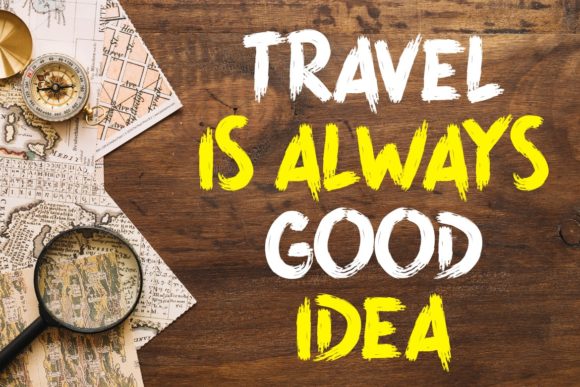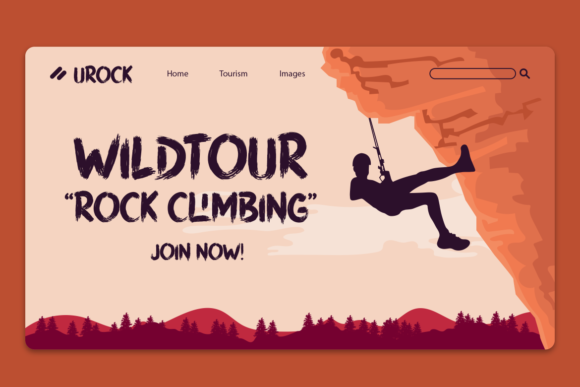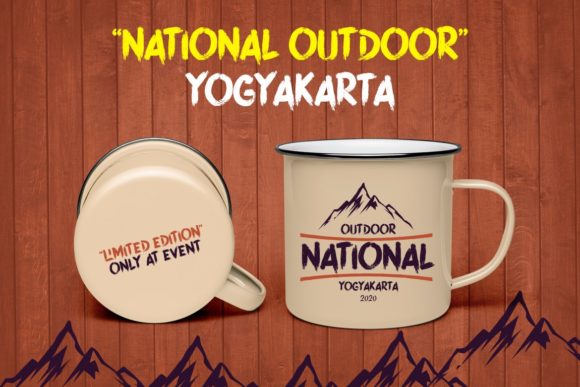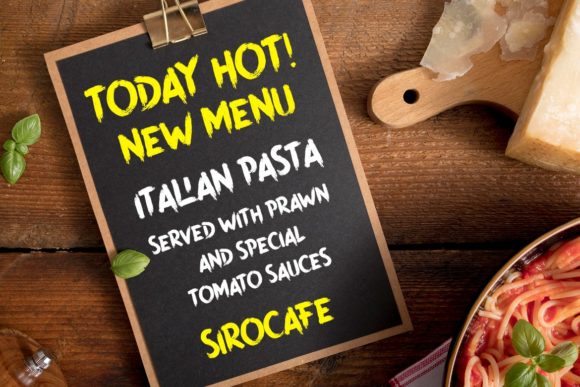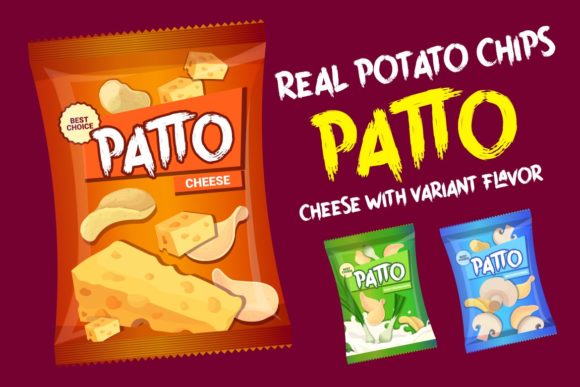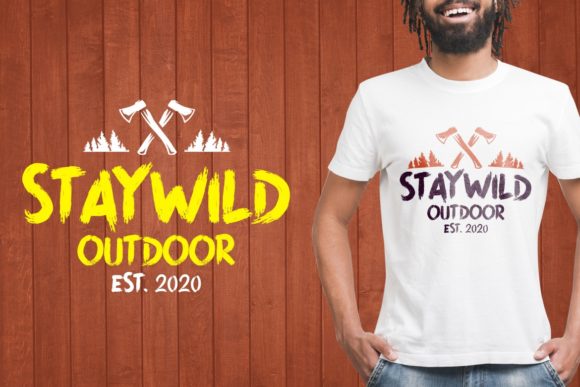
Introducing Adventours Font: The Ultimate Display Font for Creative Projects
Are you tired of using the same old fonts for your creative projects? Look no further than Adventours Font, a bold and chunky lettered display font that’s sure to make your designs stand out. With its friendly feel and incredible versatility, Adventours Font is the perfect addition to any designer’s toolkit.
What is Adventours Font?
Adventours Font is a display font designed to make a statement. Its bold and chunky lettering gives it a unique and eye-catching appearance that’s perfect for headlines, titles, and other display text. But what really sets Adventours Font apart is its friendly feel. Unlike other bold fonts that can come across as harsh or aggressive, Adventours Font has a warm and approachable vibe that’s sure to resonate with your audience.
The Benefits of Using Adventours Font
So why should you choose Adventours Font for your next project? Here are just a few benefits of using this amazing display font:
- Versatility: Adventours Font is incredibly versatile, fitting a wide range of contexts and design styles. Whether you’re working on a logo, brochure, or website, Adventours Font is sure to make a great impression.
- Legibility: Despite its bold and chunky appearance, Adventours Font is surprisingly legible, even at smaller sizes. This makes it perfect for use in a variety of applications, from business cards to billboards.
- Uniqueness: With its unique and eye-catching appearance, Adventours Font is sure to help your designs stand out from the crowd. Say goodbye to boring, generic fonts and hello to a bold and attention-grabbing look.
How to Use Adventours Font in Your Designs
So how can you start using Adventours Font in your designs? Here are a few ideas to get you started:
- Headlines and Titles: Use Adventours Font to create bold and eye-catching headlines and titles that grab your audience’s attention.
- Logos and Branding: Create a unique and memorable logo for your business or brand using Adventours Font.
- Posters and Flyers: Use Adventours Font to create bold and attention-grabbing posters and flyers that advertise your products or services.
- Web Design: Add a touch of personality to your website with Adventours Font, perfect for use in headings, titles, and other display text.
Tips and Tricks for Getting the Most Out of Adventours Font
Here are a few tips and tricks for getting the most out of Adventours Font:
- Play with Size: Adventours Font looks great at a variety of sizes, so don’t be afraid to experiment with different sizes and scales.
- Combine with Other Fonts: Adventours Font pairs well with a variety of other fonts, so feel free to get creative and experiment with different font combinations.
In conclusion, Adventours Font is a bold and chunky lettered display font that’s sure to make your designs stand out. With its friendly feel and incredible versatility, Adventours Font is the perfect addition to any designer’s toolkit. Whether you’re working on a logo, brochure, or website, Adventours Font is sure to make a great impression. So why wait? Download Adventours Font today and start creating amazing designs that grab attention and inspire action!